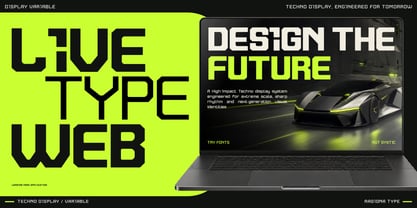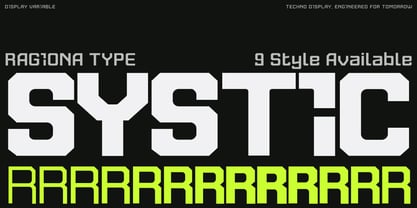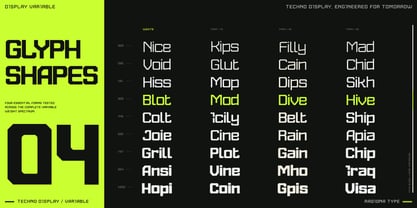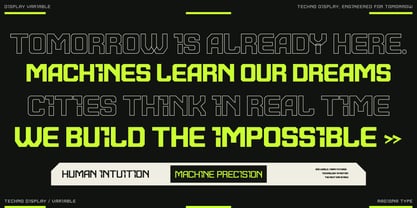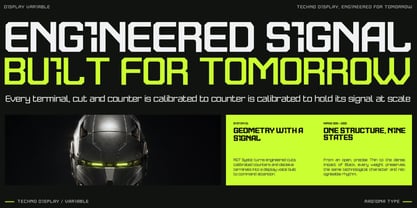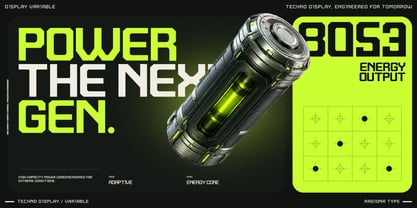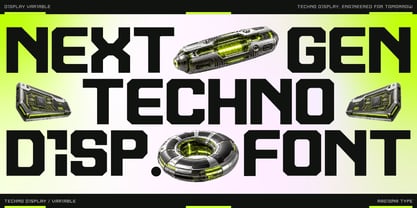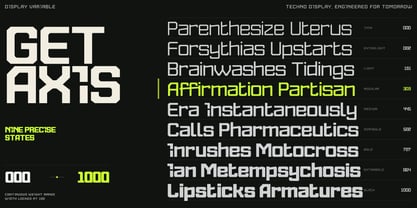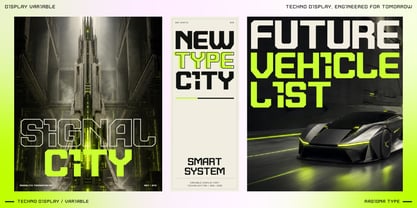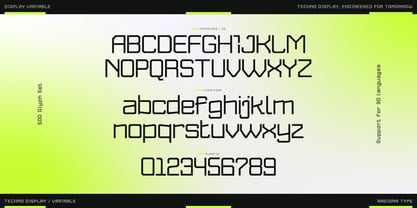
RGT Systic
by Ragiona Type
The RGT Systic Font Family was designed by Muhammad Mirza Azhmi and published by Ragiona Type. RGT Systic contains 10 styles and family package options. More about this family
RGT Systic is a futuristic variable display typeface designed by Ragiona Type for bold, technology-driven visual communication. Built from angular geometry, engineered cuts, and precisely calibrated counters, the typeface delivers a strong industrial character while maintaining a consistent and highly recognizable typographic system. Its squared proportions, distinctive terminals, and mechanical rhythm create a visual language inspired by advanced machinery, digital interfaces, automotive design, and science-fiction environments.
The family features a continuous Weight axis from 000 to 1000, supported by nine predefined styles ranging from Thin to Black. Lighter weights reveal the typeface’s technical skeleton and refined geometric construction, while heavier weights produce dense, commanding letterforms suitable for oversized headlines and high-impact compositions. Every weight preserves the same structural identity, allowing designers to move smoothly between precise, minimal typography and powerful display statements.
RGT Systic is ideal for branding, posters, gaming titles, automotive graphics, sports identities, editorial headlines, packaging, album covers, motion graphics, digital interfaces, and futuristic campaigns. Its variable format provides greater control over hierarchy, contrast, and visual intensity, making it a flexible choice for both static and responsive design systems.
Engineered for impact, RGT Systic transforms every message into a precise visual signal built for tomorrow.
Designers: Muhammad Mirza Azhmi
Foundry: Ragiona Type